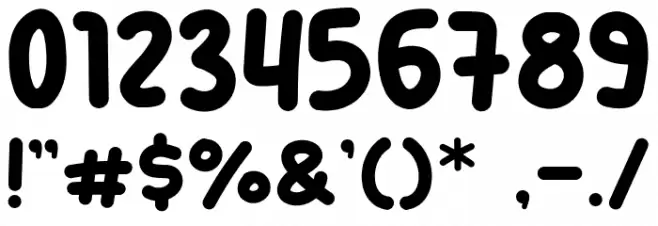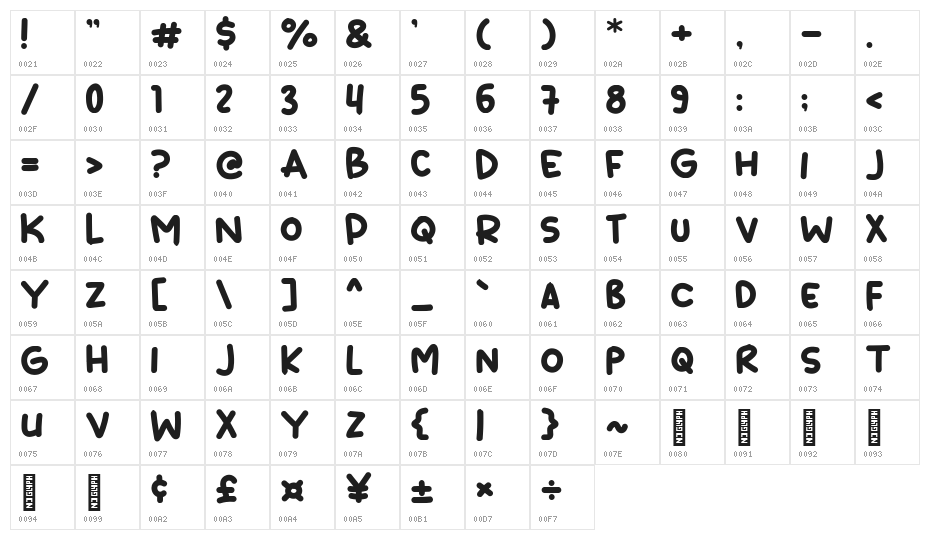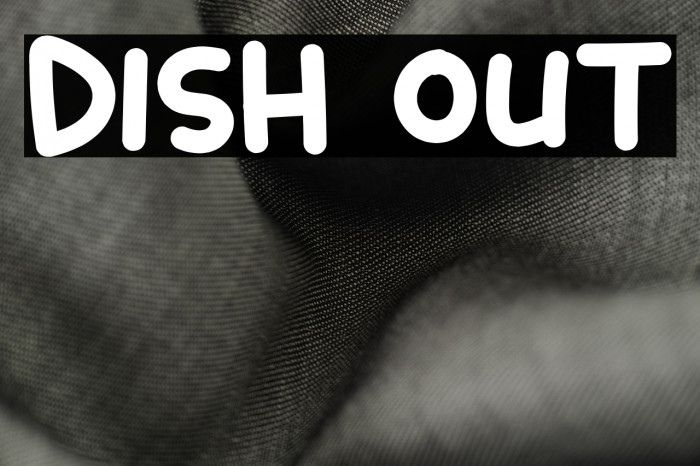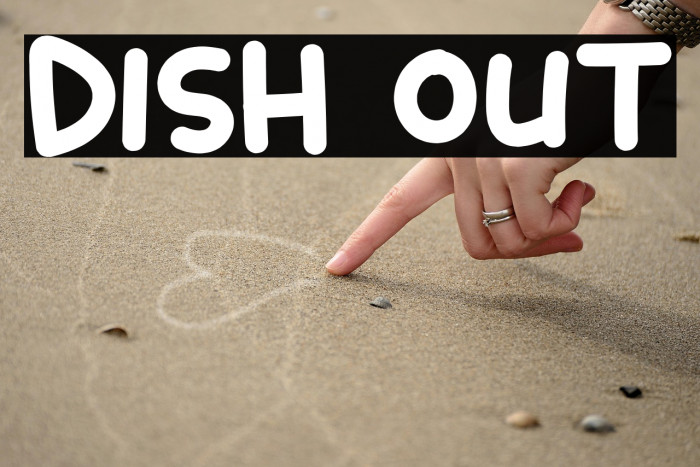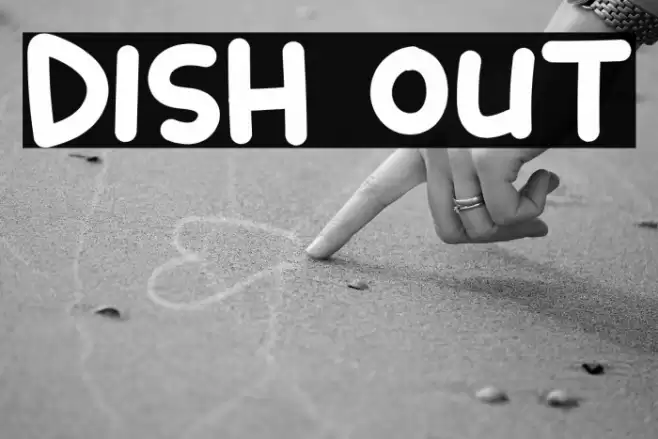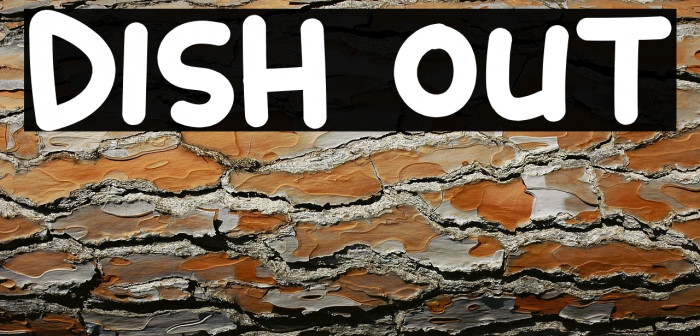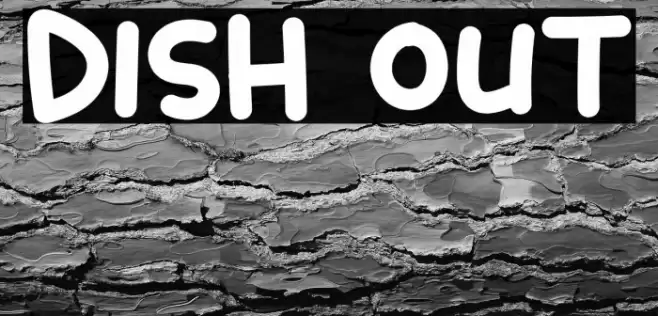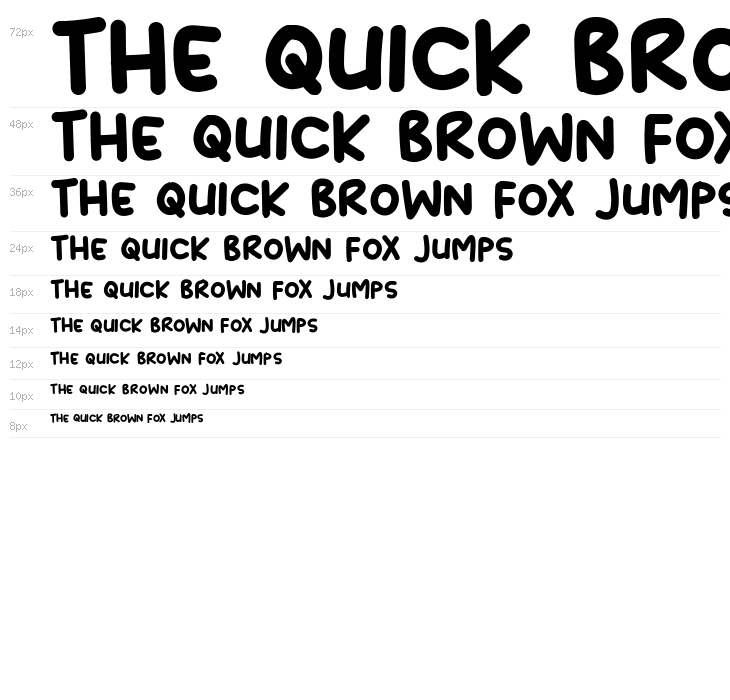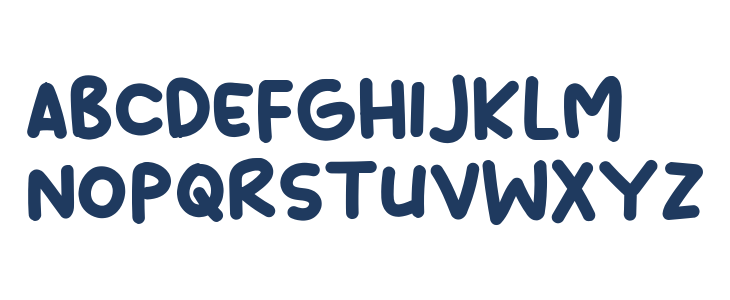
Dish Out Font
Dish Out Description
This font features a playful and bold style with rounded edges and a hand-drawn appearance. The characters are thick and uniform, giving a sense of friendliness and approachability. The uppercase and lowercase letters maintain a consistent weight, while the numbers and special characters complement the overall design. The font's casual and informal nature makes it suitable for projects that require a fun and engaging look. Its rounded forms and consistent stroke width contribute to its legibility and charm.
Overall StylePlayful
Use CaseHeadlines, Logos, Informal Text
Proposed ProjectsIdeal for children's books, comic strips, playful branding, and informal event invitations.